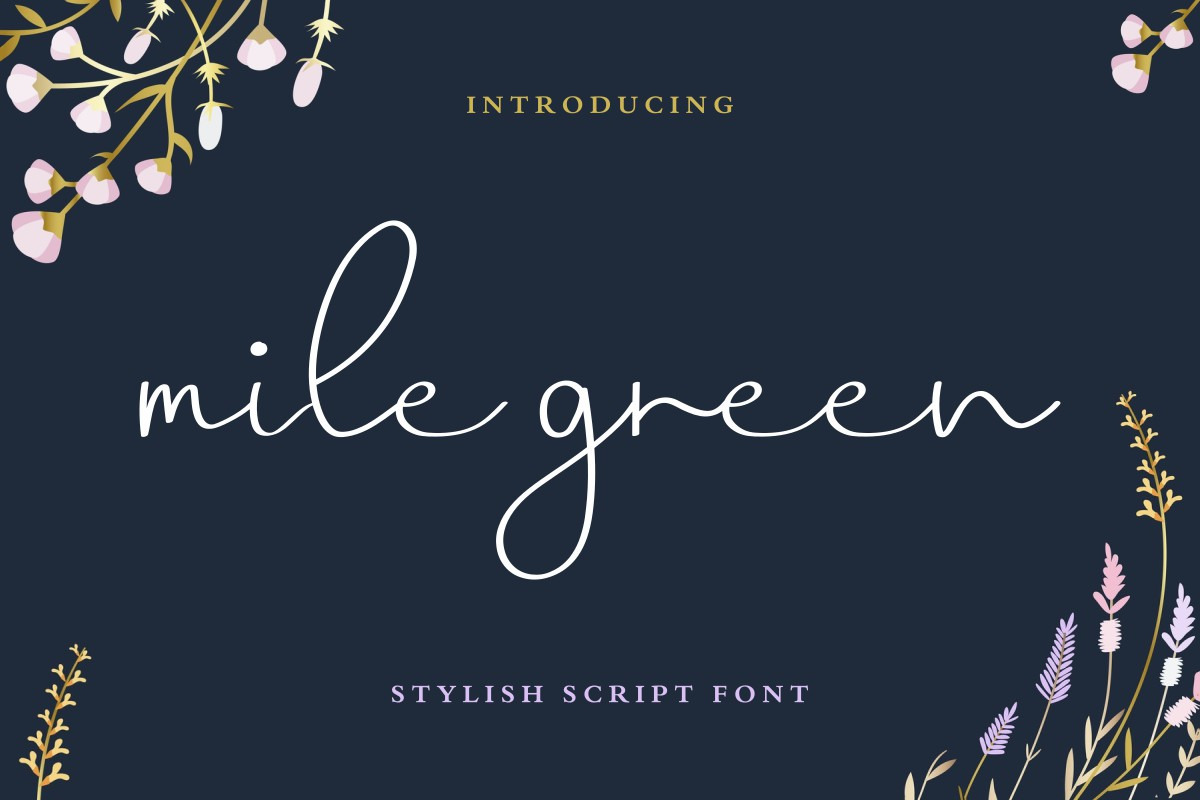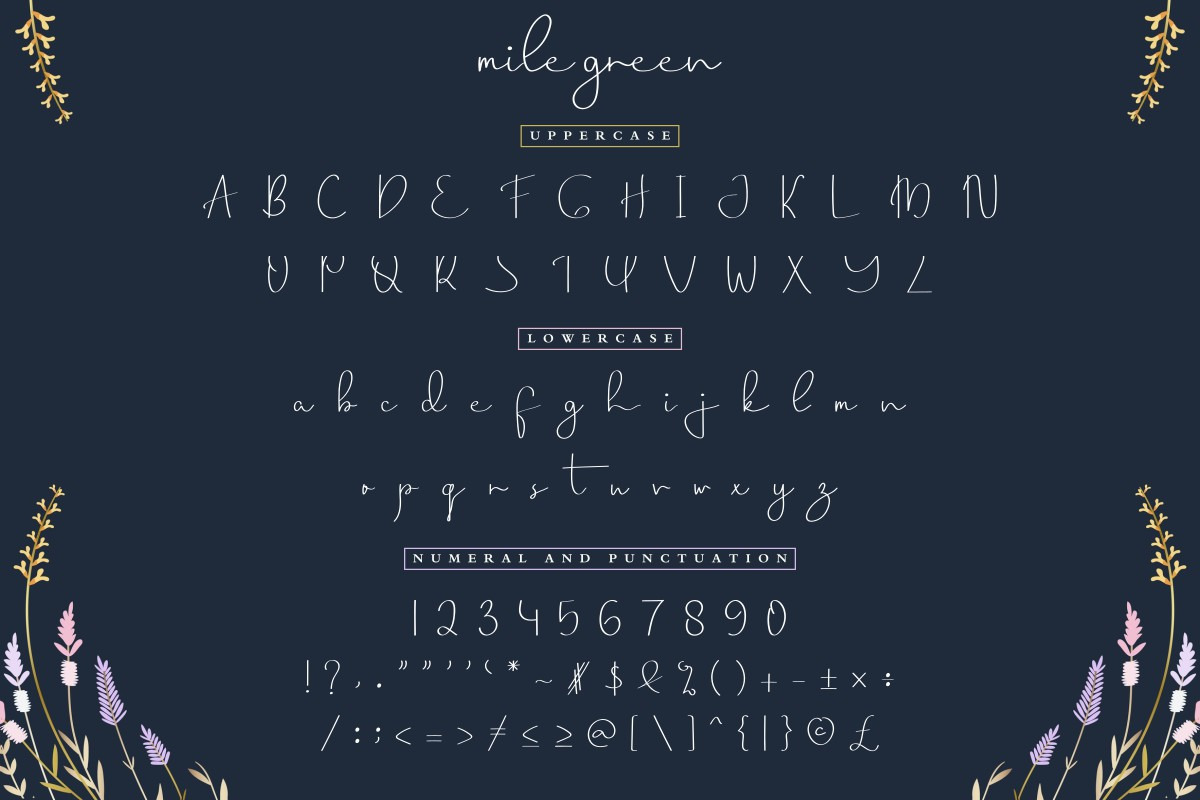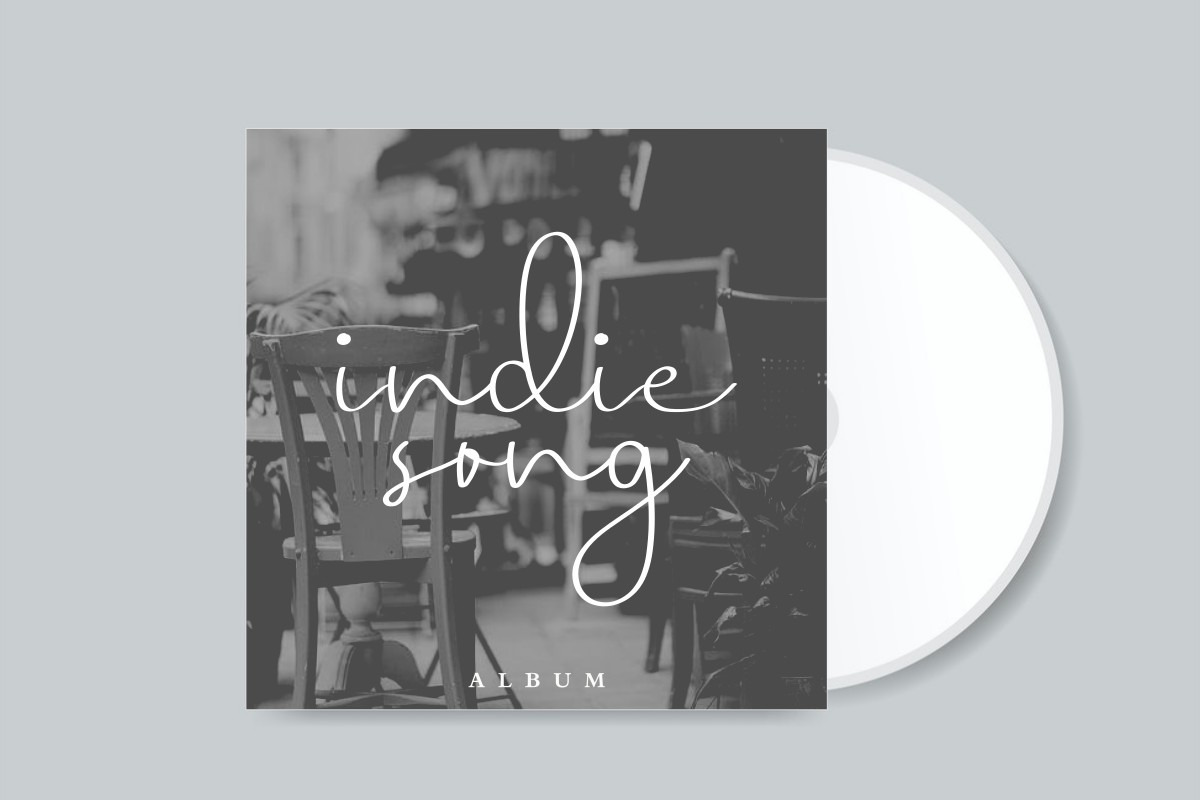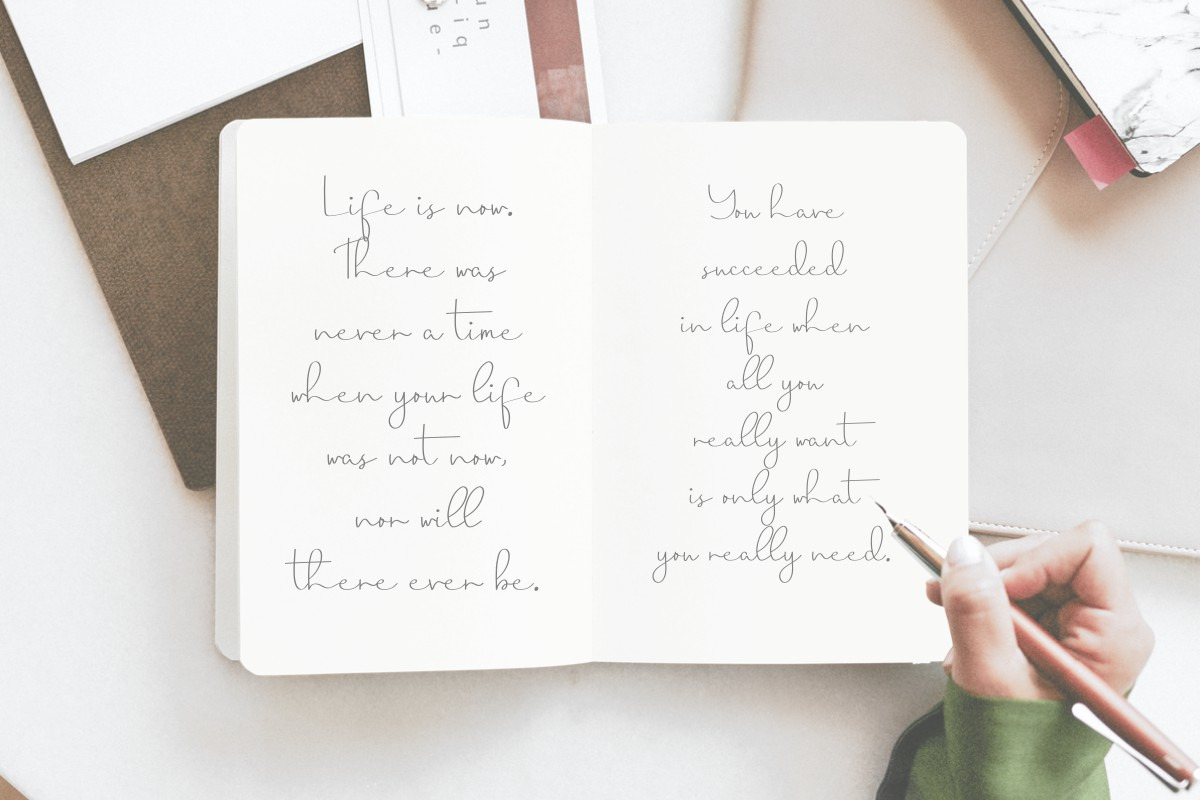
Mile Green Signature Font
The newest font from our lovely artist : Mile Green Font
This is a signature font, handcrafted from our Studio here in, Indonesia. The artists/designers of this beautiful tyeface is Widi and Suci.
Mile Green Font is an exclusive handwritten script typeface with signature style. This font has a stunning characters set, perfectly managed with well spaced and kerning. The theme style of this font will elegant, vintage, stylish, sophisticated and classic handwriting style.
Mile Green Font will be great for any projects (with exntended license) including : branding, logo, stationery, business card, signage, flyer, brochure etc. Almost all industries will be match for this typeface: wedding, events, real estate, architect, law firm, florist, gardening, makeup artist, travel, hotel, musician etc